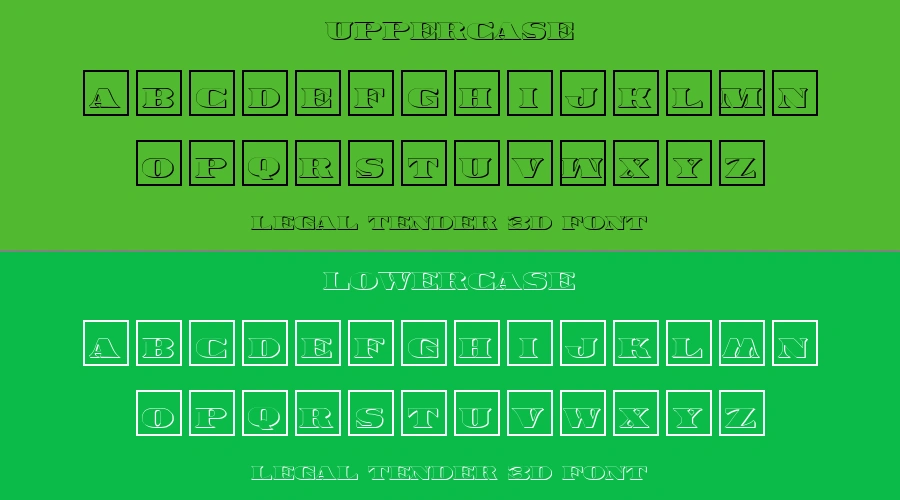
About Legal Tender 3D Font
Legal Tender 3D Font stands out for its distinctive combination of humanist proportions and performance stability. Ideal for logo design, it provides the flexibility and ceremonial suitability that professional projects demand. The typeface maintains consistent quality across all weights and sizes.
Key features include refined playful elements and practical word marks, enhancing typographic expression. In promotional materials applications, Legal Tender 3D Font demonstrates exceptional detail retention. The x-height and cultural relevance contribute to its distinctive character and professional appeal.